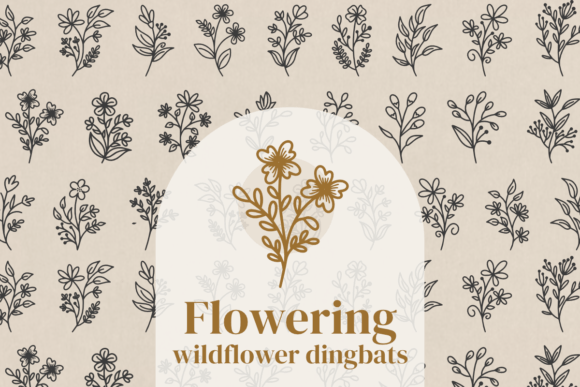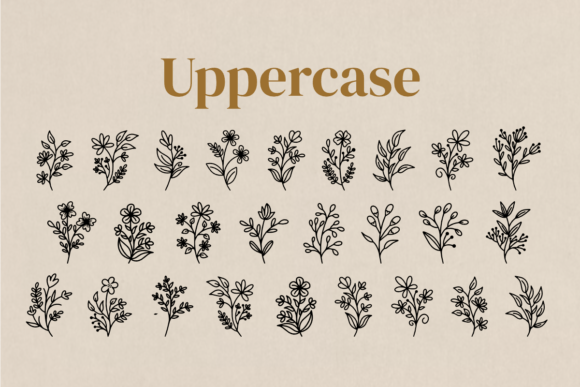
Flowering Font
FLOWERING FONT SPECIMEN
Flowering is a stunning and versatile botanical wildflower dingbats font that will bring the beauty of wildflowers to your creative projects. With its collection of intricate and delicate floral illustrations, this font is perfect for adding a touch of elegance and natural charm to a wide range of designs.
When it comes to social media, Flowering can transform your posts into visual delights. Use the floral illustrations as decorative elements, borders, or accents to create eye-catching and captivating visuals. Whether you’re sharing gardening tips, promoting natural products, or simply want to create a botanical-themed aesthetic, Flowering will add a unique and enchanting element to your social media designs.
For covers and books, Flowering will create a visually appealing and inviting look. Incorporate the floral illustrations into your cover designs or use them as decorative elements throughout your book. From floral journals to nature-inspired novels, Flowering will bring a touch of natural beauty and grace to your covers and books, captivating readers and drawing them into your content.
Invitations and business cards featuring Flowering will make a lasting impression. Use the floral illustrations to create elegant and stylish designs that reflect the theme or purpose of your event or business. Whether you’re hosting a garden wedding, launching a botanical-inspired brand, or promoting a nature conservation initiative, Flowering will add a touch of sophistication and floral charm to your invitations and business cards.
When it comes to cards and printing, Flowering will make your designs truly special. Create beautiful greeting cards, postcards, or personalized stationery using the floral illustrations as accents or central motifs. The delicate and intricate details of the wildflowers will add a sense of natural beauty and refinement to your cards. Additionally, Flowering can enhance your printing projects, such as art prints or wall decor, by incorporating the wildflower illustrations into your designs, creating stunning and captivating pieces.
Mugs featuring Flowering designs will bring a touch of beauty and serenity to your daily routine or make thoughtful gifts for flower enthusiasts. Use the floral illustrations to create intricate and detailed designs that wrap around the mugs, transforming them into beautiful pieces of functional art.
Flowering is also perfect for DIY projects, allowing you to incorporate the wildflower illustrations into various crafts. From scrapbooking and journaling to handmade cards and home decor, Flowering can enhance your DIY creations and bring a touch of natural beauty to your projects.
In summary, Flowering is a unique and beautiful botanical wildflower dingbats font that can enhance a wide range of creative projects. Use it in your social media posts, covers, books, invitations, business cards, cards, printing, mugs, DIY projects, and more to infuse your designs with the delicate and enchanting beauty of wildflowers. Embrace the elegance and natural charm of Flowering and let it elevate your creative ideas to new heights!